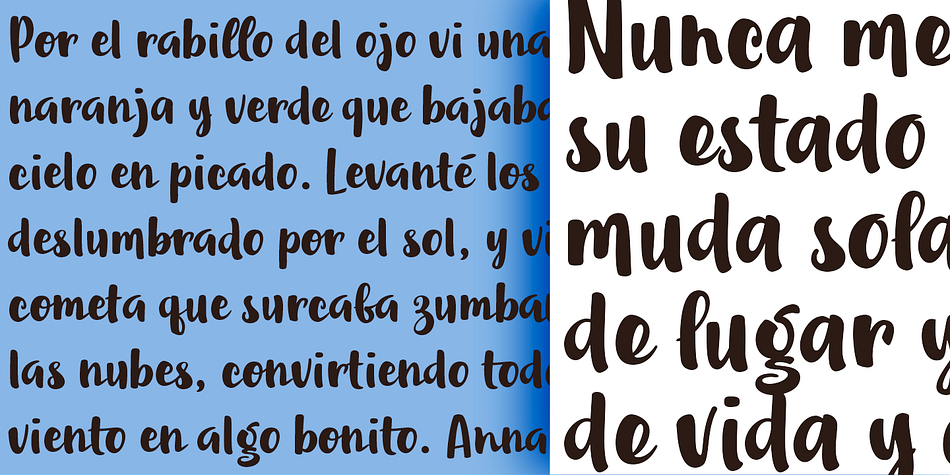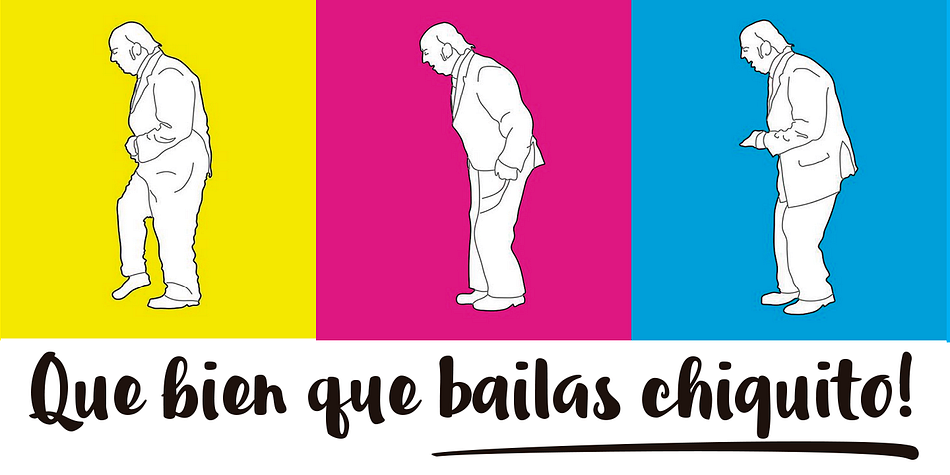
Halley
Designed by Carine de Wandeleer, Halley is a font family. This typeface has three styles and was published by Eurotypo.
Halley is a modern, funny and casual script with an irregular base line that gives it a unique and modern look. All the glyphs have been carefully painted giving the texts a wonderful flow. A fat and thin blow in this font impresses the harmony.
Halley family pack comes in three styles: regular, italic and Shadow.
Each font contains 746 “regular or irregular” glyphs, including up to seven alternatives in upper case and six in lower case, standard and discretionary ligatures for a genuine handwriting effect. It also includes a Central European language support with its corresponding alternative characters to have more options in those languages.
Halley looks beautiful in children’s booklets, fashion, magazines, restaurant menus, book covers, wedding invitations, greeting cards, logos, business cards and is perfect for use in designs based on ink or watercolor.